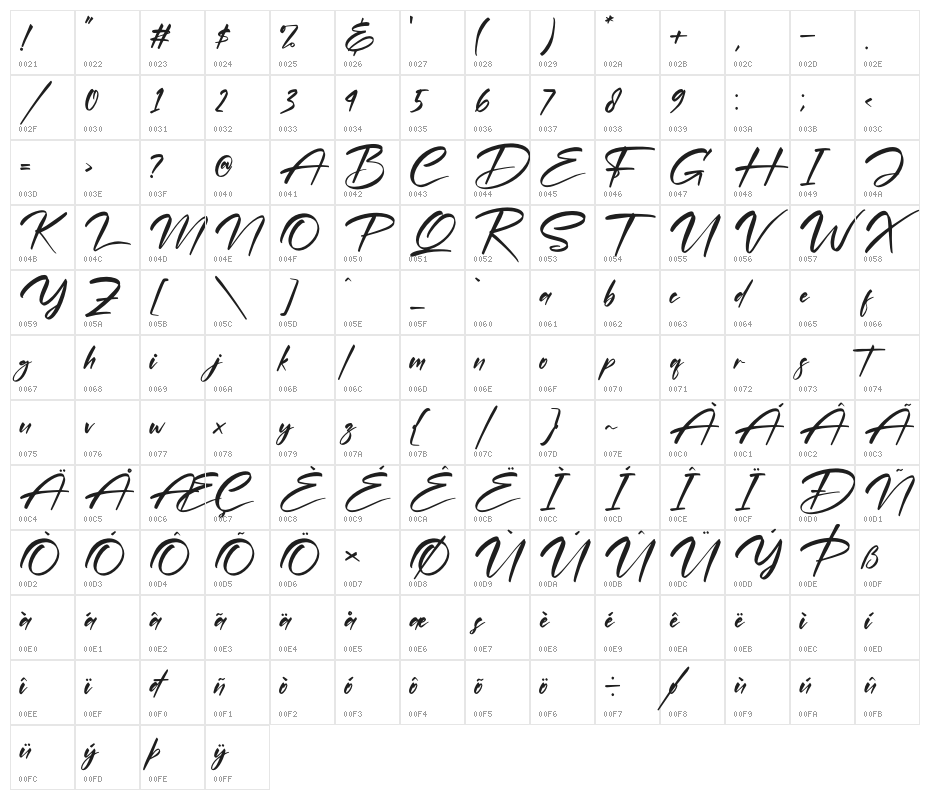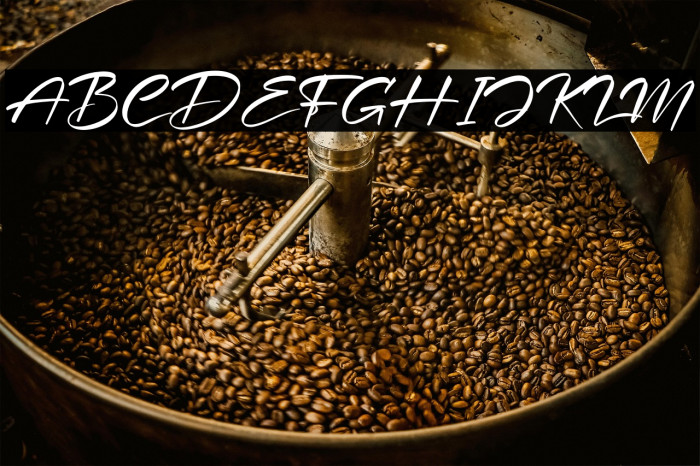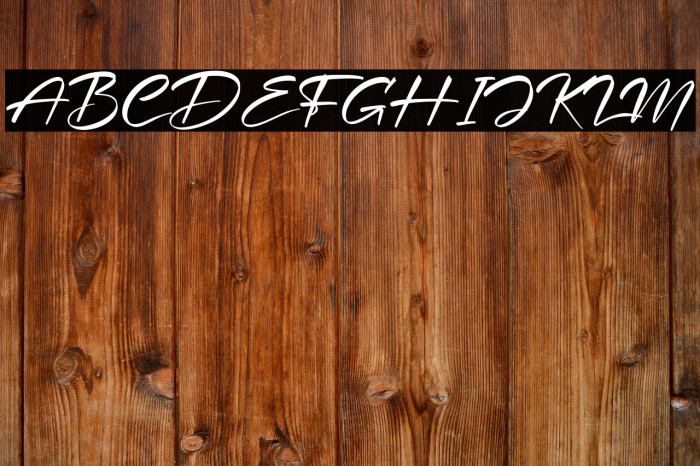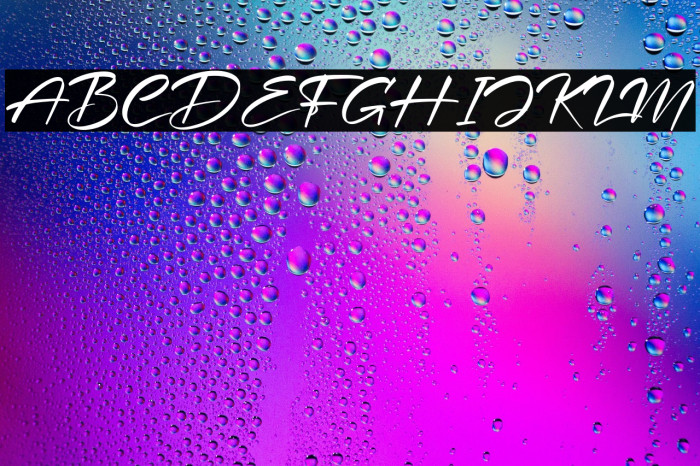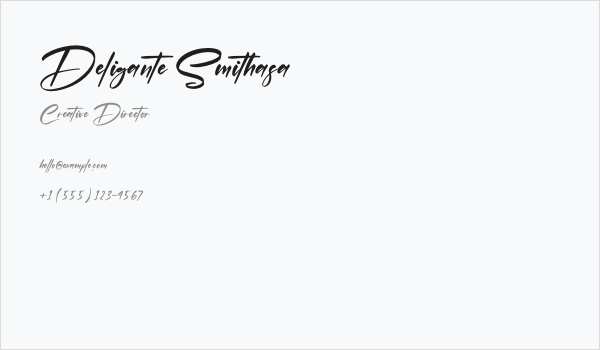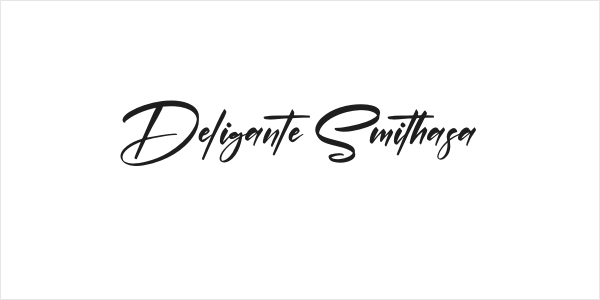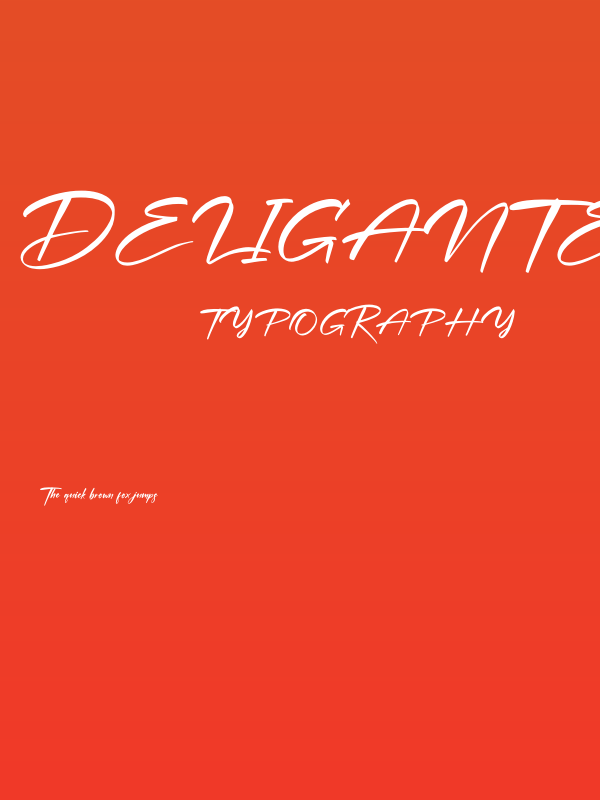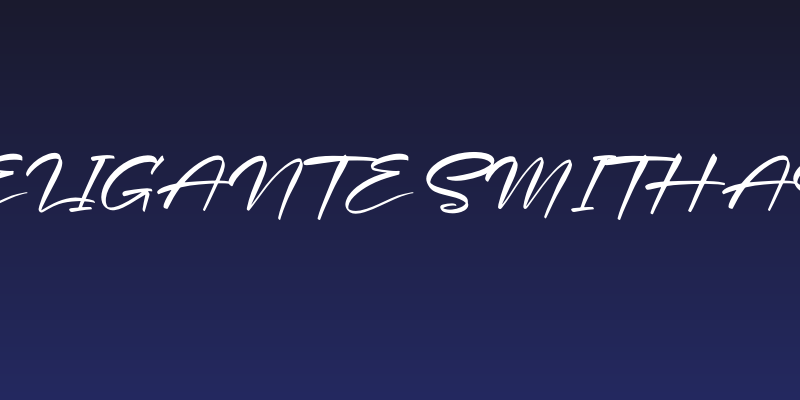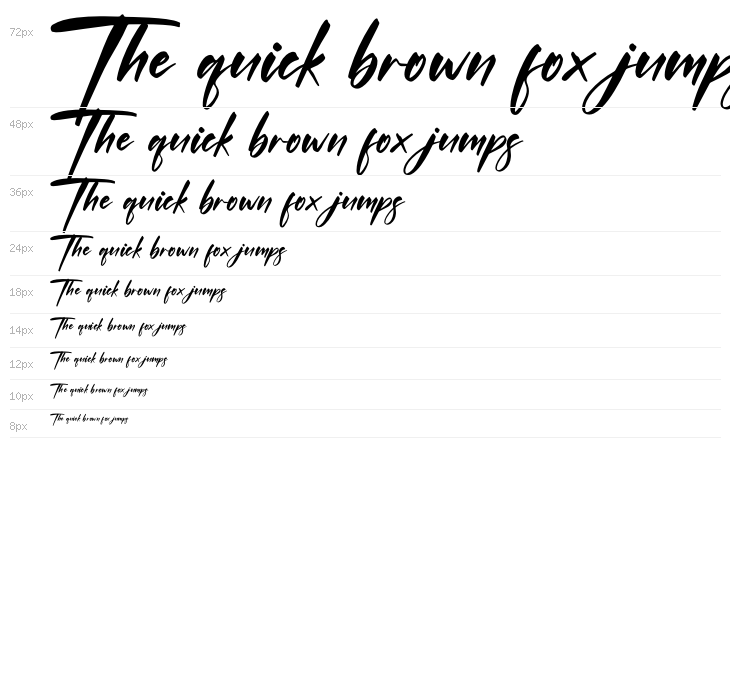
Deligante Smithasa Font
Deligante Smithasa Description
This font features a dynamic and fluid script style, characterized by its elegant and flowing letterforms. The uppercase letters are slightly more structured, maintaining a balance between formality and artistic flair. The lowercase letters exhibit a more pronounced cursive style, with smooth connections and a natural handwritten appearance. The numerals are consistent with the overall style, offering a cohesive look. Special characters are thoughtfully designed to complement the script, adding versatility to its use. The font's overall aesthetic is both sophisticated and approachable, making it suitable for a variety of creative applications.
| Proposed Projects | Ideal for wedding invitations, branding, greeting cards, and elegant packaging designs. |